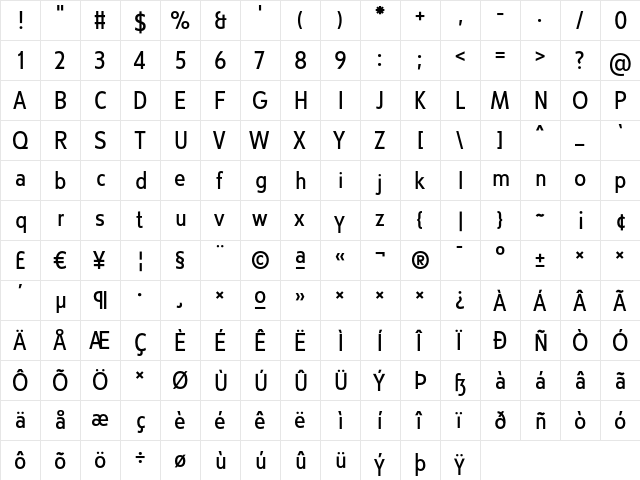
CstBerlinWest Regular
Design Context for CstBerlinWest Typeface
CstBerlinWest is a composed and adaptable typeface that performs quietly and consistently across a wide range of design contexts.
Pro Tip: Pair CstBerlinWest with a font of contrasting weight or personality to build a more expressive typographic hierarchy.